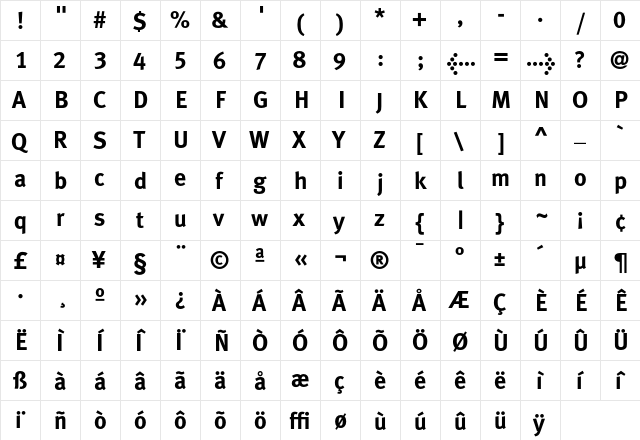
MetaPlusLining Bold
MetaPlusLining offers clean, dependable letterforms without strong stylistic allegiance, making it a practical choice for designers who need flexibility. The heavy weight commands attention and anchors typographic hierarchies.
Pro Tip: Use MetaPlusLining in both headline and body roles to test its range before committing to a single application.